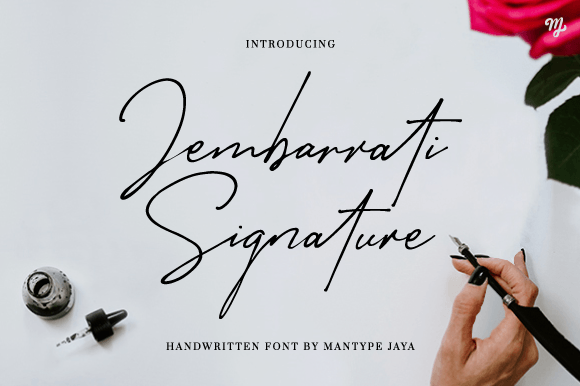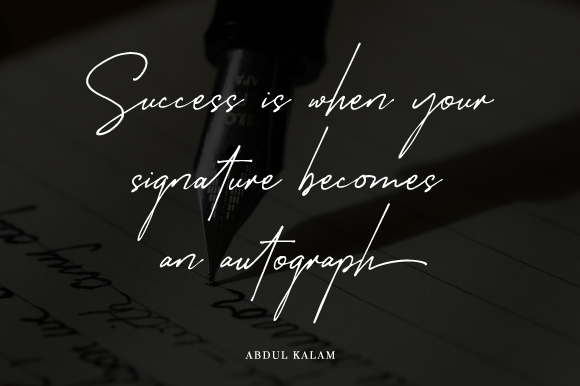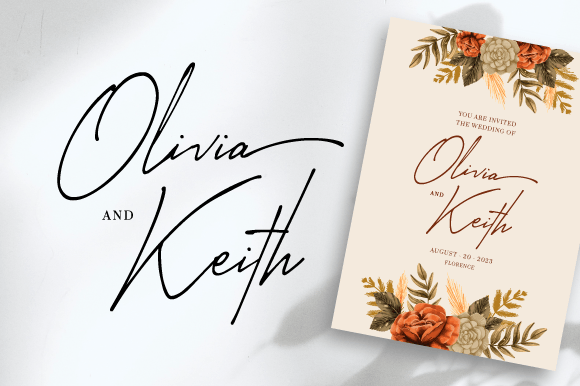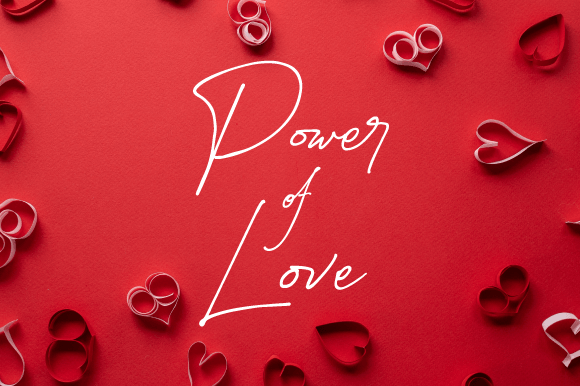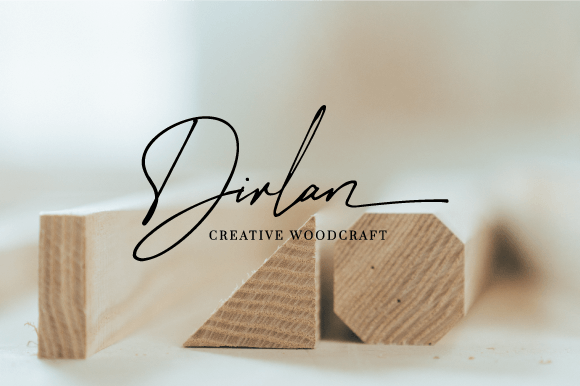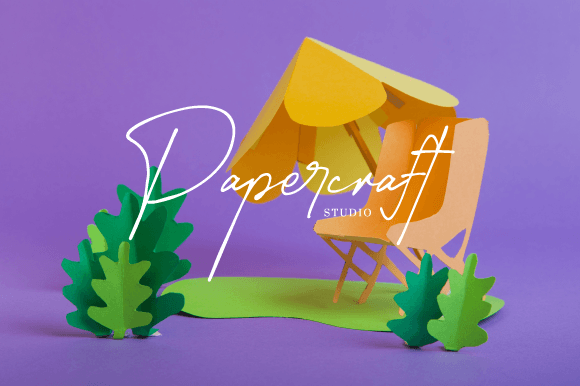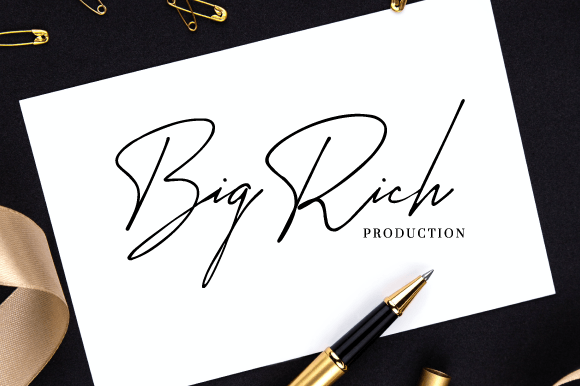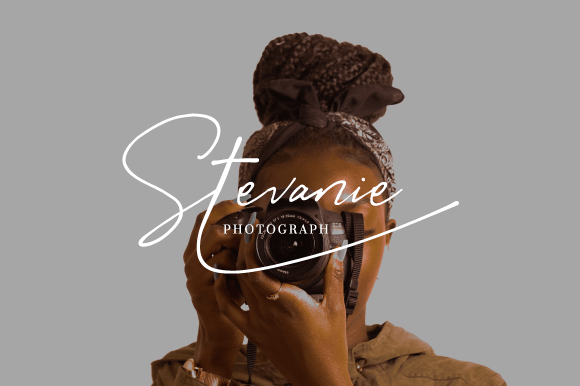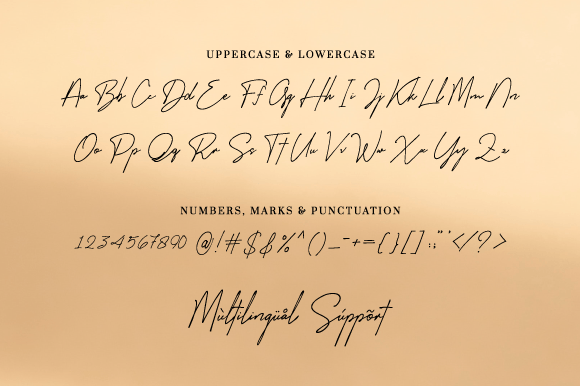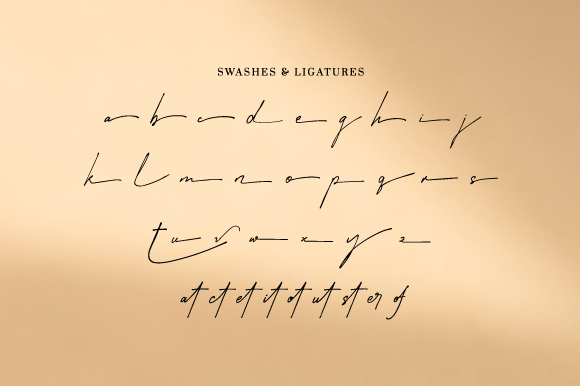
Jembarrati Signature Font
About Jembarrati Signature Font
**Jembarrati Signature Font: Enchanting Handwritten Elegance**
Introducing Jembarrati Signature, an enchanting handwritten script font that seamlessly blends classic and modern design styles. With its dynamic strokes, this font is versatile, offering a neutral, masculine, or feminine feel to your creations. Here’s why Jembarrati Signature is a remarkable addition to your font collection:
**Classic Meets Modern:** Jembarrati Signature effortlessly bridges the gap between classic and contemporary design aesthetics, making it a versatile choice for various creative projects.
**Dynamic Elegance:** The font’s dynamic strokes add an element of elegance to your designs, creating a sense of movement and flow that captures the viewer’s attention.
**Neutral Appeal:** Jembarrati Signature strikes a balance between neutrality and style, making it suitable for a wide range of applications and design preferences.
**Masculine or Feminine:** Depending on how you use it, this font can exude both masculine and feminine vibes, allowing you to tailor your designs to your specific target audience or brand identity.
**Beautiful Glyphs and Swashes:** Jembarrati Signature is PUA encoded, ensuring easy access to its beautiful glyphs and swashes. This feature enables you to add intricate details and flourishes to your text effortlessly.
**Signature Elegance:** The font’s handwritten style adds a personal touch to your designs, as if each word were expertly signed by hand.
**Versatile Usage:** From logos and branding to invitations, quotes, and beyond, Jembarrati Signature is a versatile choice for any project where elegance and sophistication are essential.
**Timeless Charm:** The timeless charm of Jembarrati Signature ensures that your designs will remain captivating and relevant for years to come.
**Elegant Dynamics:** Jembarrati Signature’s dynamic quality adds an extra layer of elegance and intrigue to your text, making it a standout feature in your design.
**Capture Attention:** The font’s unique blend of classic and modern elements is sure to capture the attention of your audience, leaving a lasting impression.
**Personal or Professional:** Whether you’re designing for personal or professional use, Jembarrati Signature offers a touch of enchanting elegance that elevates your work.
**Brand Identity:** Use Jembarrati Signature to establish or enhance your brand’s identity, infusing your visuals with a sense of timeless elegance.
**Signature Appeal:** This font exudes a signature appeal, making it perfect for creating a strong and memorable visual presence.
**Effortless Flourishes:** Thanks to its PUA encoding, adding decorative elements and flourishes to your text with Jembarrati Signature is effortless and accessible.
**Enhance Your Designs:** Elevate your designs with the enchanting elegance of Jembarrati Signature, and experience how it can transform your creative vision into captivating reality.
**Tailor-Made Elegance:** Jembarrati Signature is the font you can tailor to fit your unique design needs, ensuring that every project you undertake radiates elegance and style.
**Unleash the Enchantment:** Unleash the enchantment of Jembarrati Signature and let it take your designs to new heights of elegance and sophistication.
**Elegant Autograph:** With Jembarrati Signature, each word appears as if it were elegantly autographed by hand, adding a personal touch to your designs.
**Classic and Contemporary:** Jembarrati Signature’s ability to seamlessly blend classic and contemporary styles ensures its enduring appeal and versatility in design.
**Access Beautiful Glyphs:** Use the font’s PUA encoding to access its beautiful glyphs and swashes, effortlessly enhancing your designs with intricate details.
**Design with Confidence:** Design with Jembarrati Signature and confidently create visuals that exude enchanting elegance, leaving a lasting impact on your audience.
**Elevate Your Brand:** Elevate your brand’s image and perception with the timeless elegance of Jembarrati Signature, establishing a strong and memorable visual identity.
**Signature Style:** Jembarrati Signature brings a signature style to your designs, making each creation uniquely enchanting and sophisticated.
**Unveil the Magic:** Unveil the magic of Jembarrati Signature and experience how it can transform your ordinary designs into extraordinary works of art.
**Design with Enchantment:** Design with Jembarrati Signature and infuse your projects with an enchanting elegance that captivates and delights.
**Make Your Mark:** Use Jembarrati Signature to make your mark in the world of design, leaving an indelible impression on your audience with its enchanting elegance.